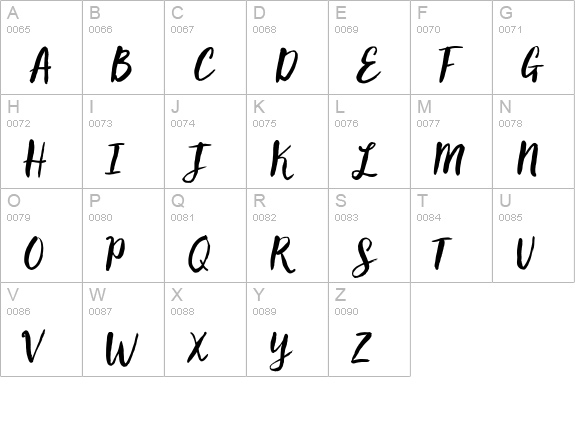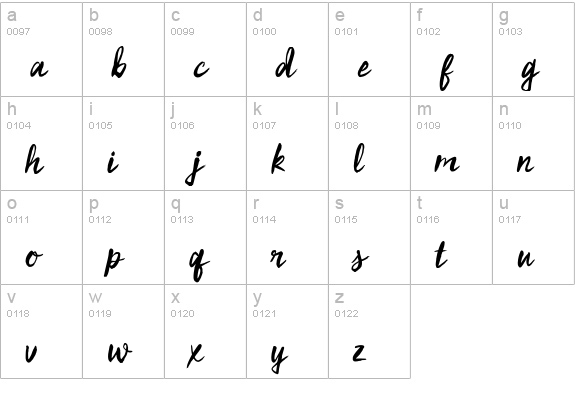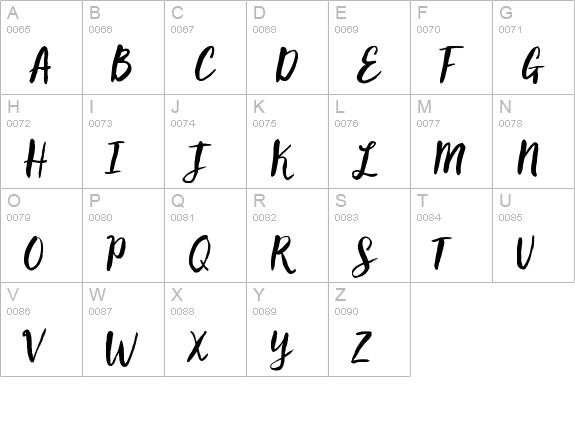
Silk Road font is a unique and elegant typeface that evokes a sense of mystery and sophistication. Its delicate curves and intricate details make it perfect for adding a touch of exotic flair to your designs. Inspired by the ancient trade routes that connected the East and the West, Silk Road font brings a sense of history and adventure to any project. What sets Silk Road font apart is not just its stunning appearance, but also the fact that it is available for free. That's right, you can now download this beautiful font at FontsMarket.com without any cost. Whether you're working on a branding project, a website design, or any other creative endeavor, Silk Road font will add a touch of elegance and intrigue that is sure to impress. Don't miss out on this opportunity to enhance your designs with this exquisite typeface. Download Silk Road font for free today at FontsMarket.com and let your creativity soar!